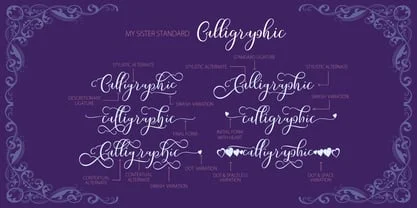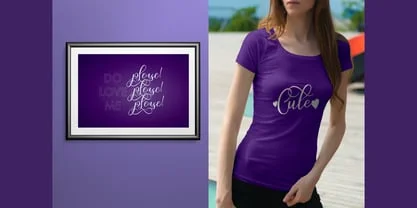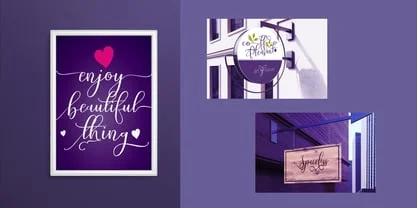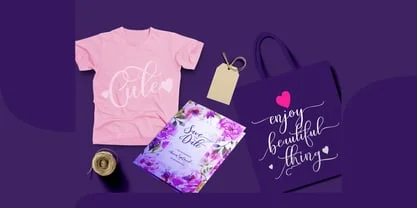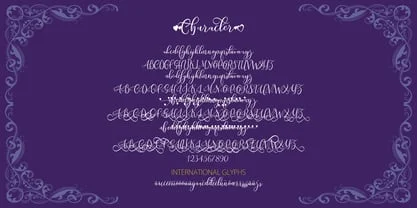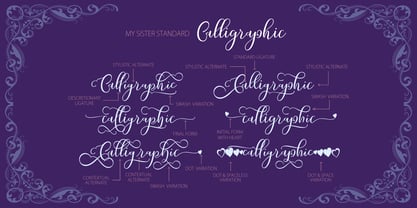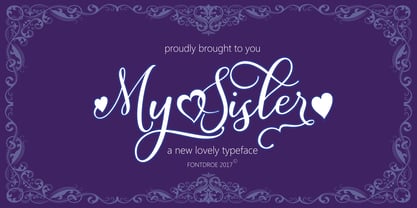
My Sister Font
There is a particular satisfaction in finding a typeface that delivers a confident voice that adapts to diverse briefs without compromise. My Sister consistently provides it. The typeface brings an elegant, calligraphic sensibility to a broad range of creative disciplines, with optical balance across all weights that holds up whether the work is print-first or screen-first.
In practice, My Sister proves particularly effective for perfume labels, product labels, packaging design, brand identity systems, poster creation. Designers reaching for it find that the type decisions feel resolved rather than laboured — a useful quality when client timelines are tight.
The range of applications extends to fashion editorials, environmental graphics, fragrance labels, wedding invitations. That breadth is deliberate: the proportions and spacing were stress-tested across a wide range of mock briefs before the typeface was finalised.
Pairing My Sister with a contrasting serif or a neutral grotesque gives mixed-format layouts a clear visual grammar without requiring constant size adjustments to establish hierarchy.
In-house creative teams at consumer brands find My Sister a reliable choice for projects that demand both personality and restraint. The design avoids the self-conscious quirkiness that dates quickly, settling instead for considered distinctiveness that holds up over time.